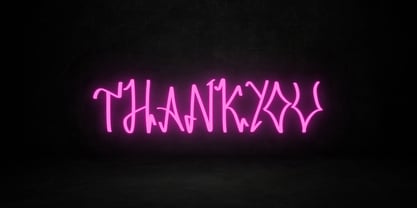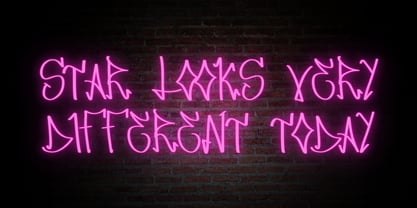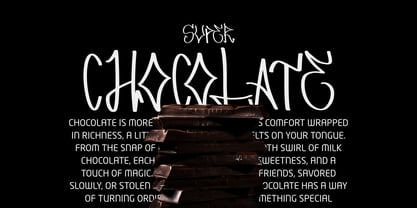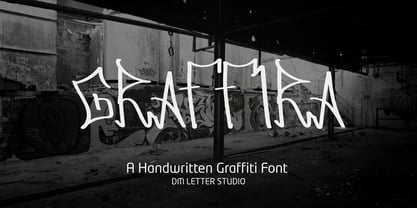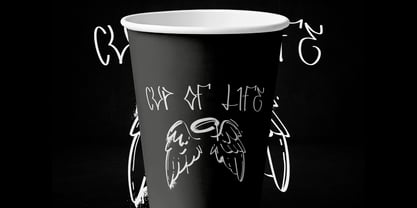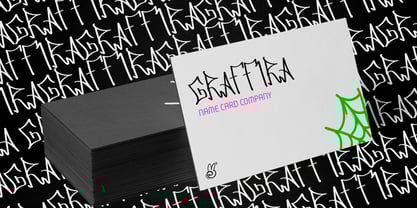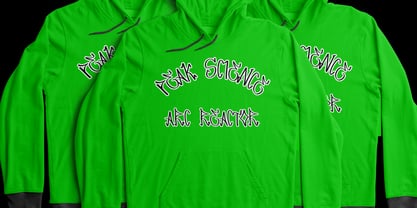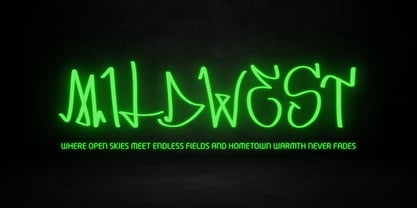
Graffira
The Graffira Font Family was designed by Dimas Prasetyo and published by DM Studio. Graffira contains 1 styles. More about this family
Graffira – Bold Graffiti Display Font Graffira is an energetic graffiti-inspired display font built for bold and urban designs. With its dynamic strokes, sharp edges, and unmistakable street-art vibe, this typeface brings raw character and modern style to any project. It captures the essence of graffiti culture while keeping the structure versatile enough for professional use. Whether you’re designing music covers, streetwear branding, posters, or social media graphics, Graffira ensures your message stands out with attitude and personality. The strong, hand-drawn look of Graffira gives it a natural edge. It works especially well in urban projects, merchandise, apparel, YouTube thumbnails, and event flyers. Its expressive letterforms make it ideal for headlines and designs that need to grab attention instantly. For creatives working with themes of rebellion, energy, or bold self-expression, this font delivers both authenticity and impact. Crafters and digital designers will find Graffira easy to use across platforms. It’s fully compatible with Cricut, Silhouette, Canva, Procreate, Photoshop, and Illustrator, making it a flexible choice for cutting machines, printable designs, or digital artwork. Whether you’re layering colors for a retro vibe or going raw with single strokes, Graffira adapts beautifully. Features: Graffiti-Inspired Style: Strong strokes and edgy curves capture the essence of street lettering. Perfect for Urban Projects: Great for posters, apparel, logos, YouTube thumbnails, and merch. Raw & Expressive: Adds personality and boldness to headlines and creative projects. Complete Character Set: A–Z uppercase, lowercase, numerals, punctuation, and multilingual support. Easy Installation: Works seamlessly on both Mac and Windows.